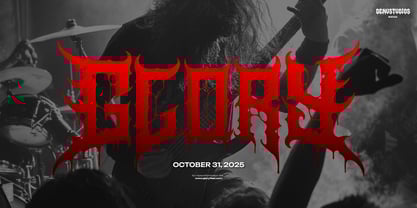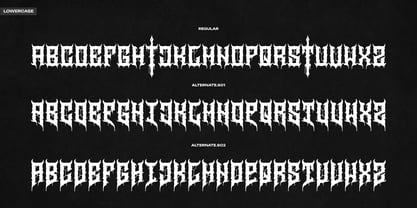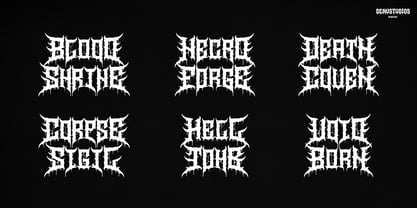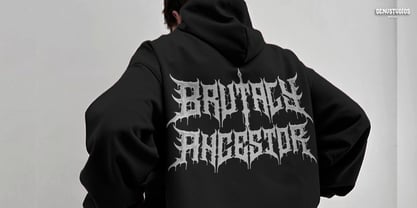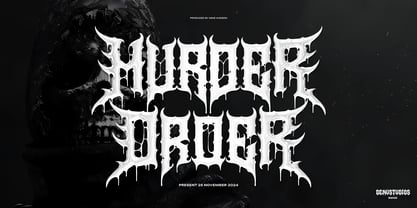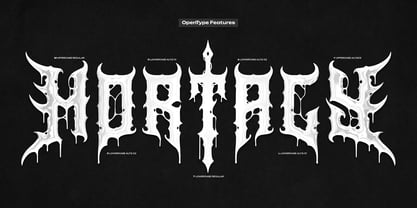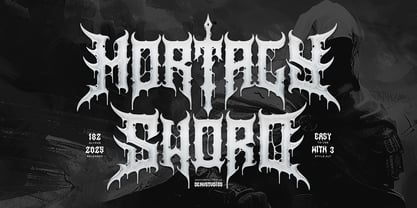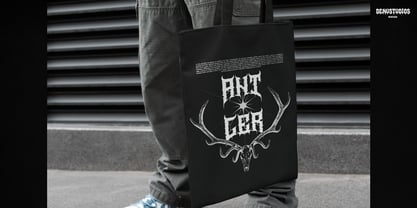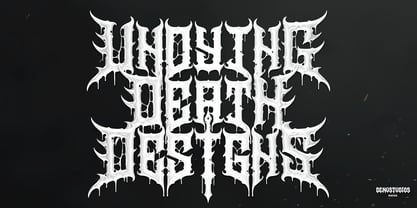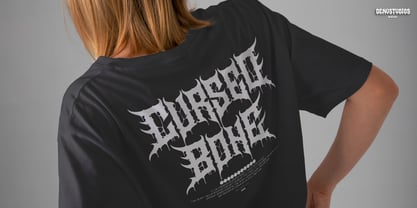
Mortaly Sword
The Mortaly Sword Font Family was designed by Dede Nugraha and published by Denustudio. Mortaly Sword contains 1 styles. More about this family
Mortaly Sword | Death Metal Typeface, from Denustudios, suitable for any projects such as: logos, branding projects, homeware designs, product packaging, mugs, quotes, posters, shopping bags, t-shirts, book covers, name card, invitation cards, greeting cards, label, photography, watermark, special events, and all your other lovely projects that need Death Metal Typeface a taste.
• Alternate and Ligature